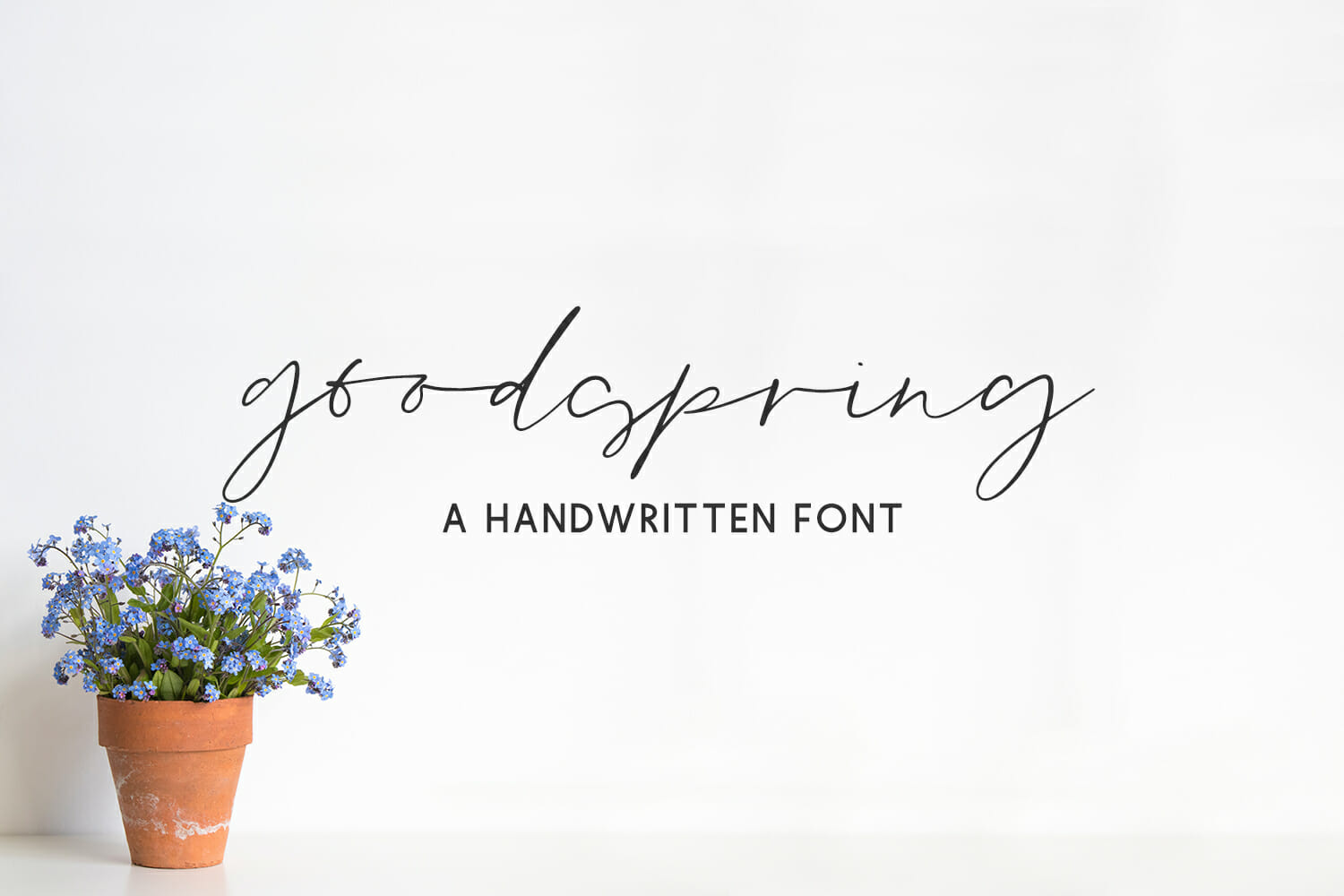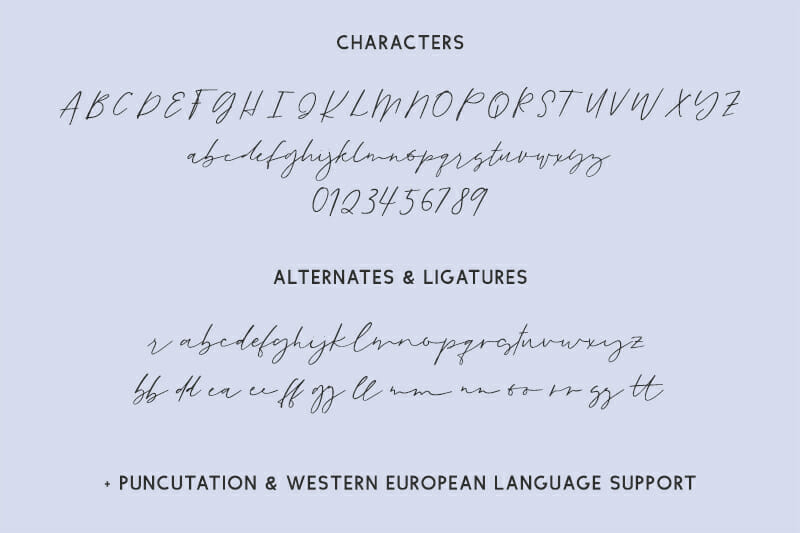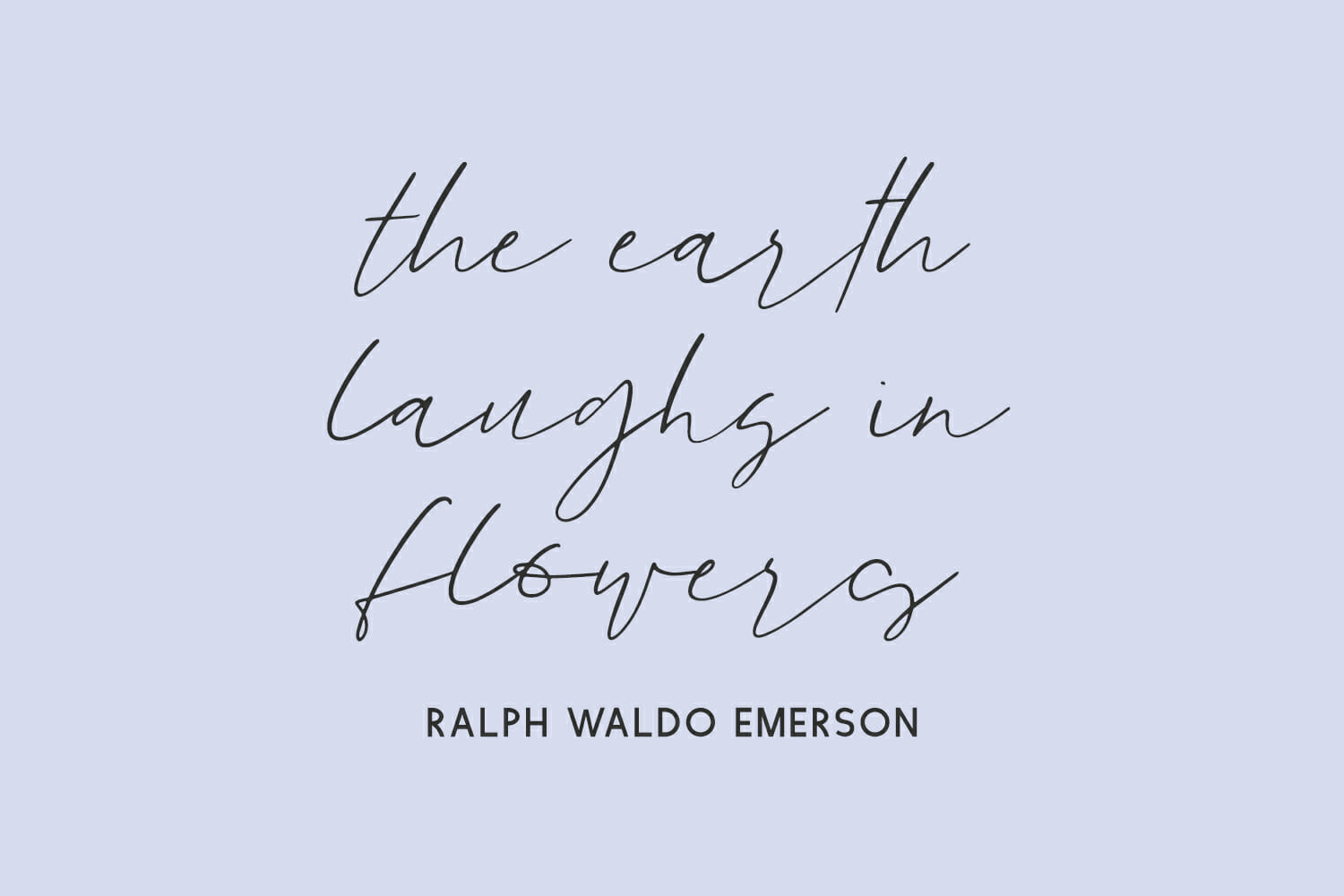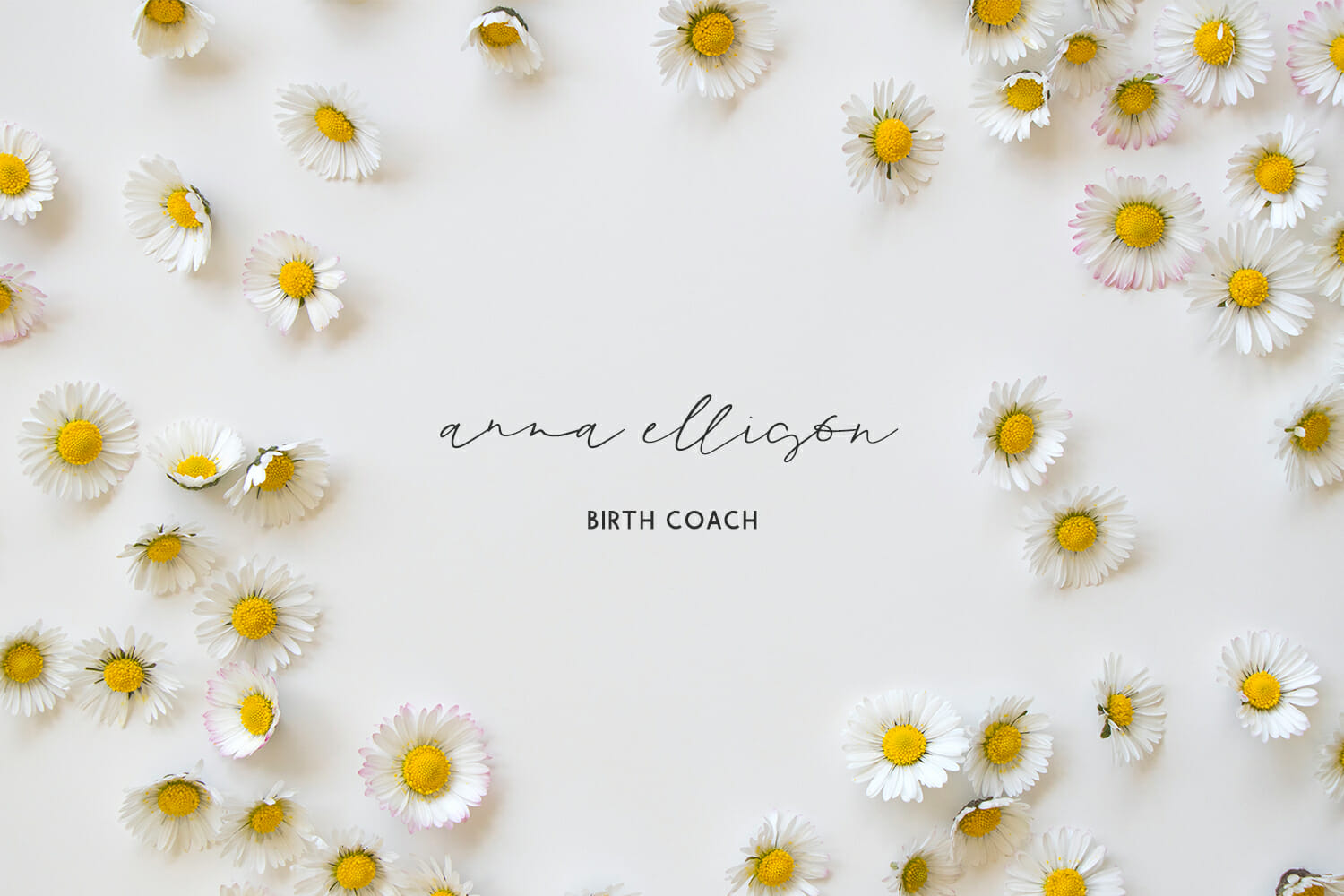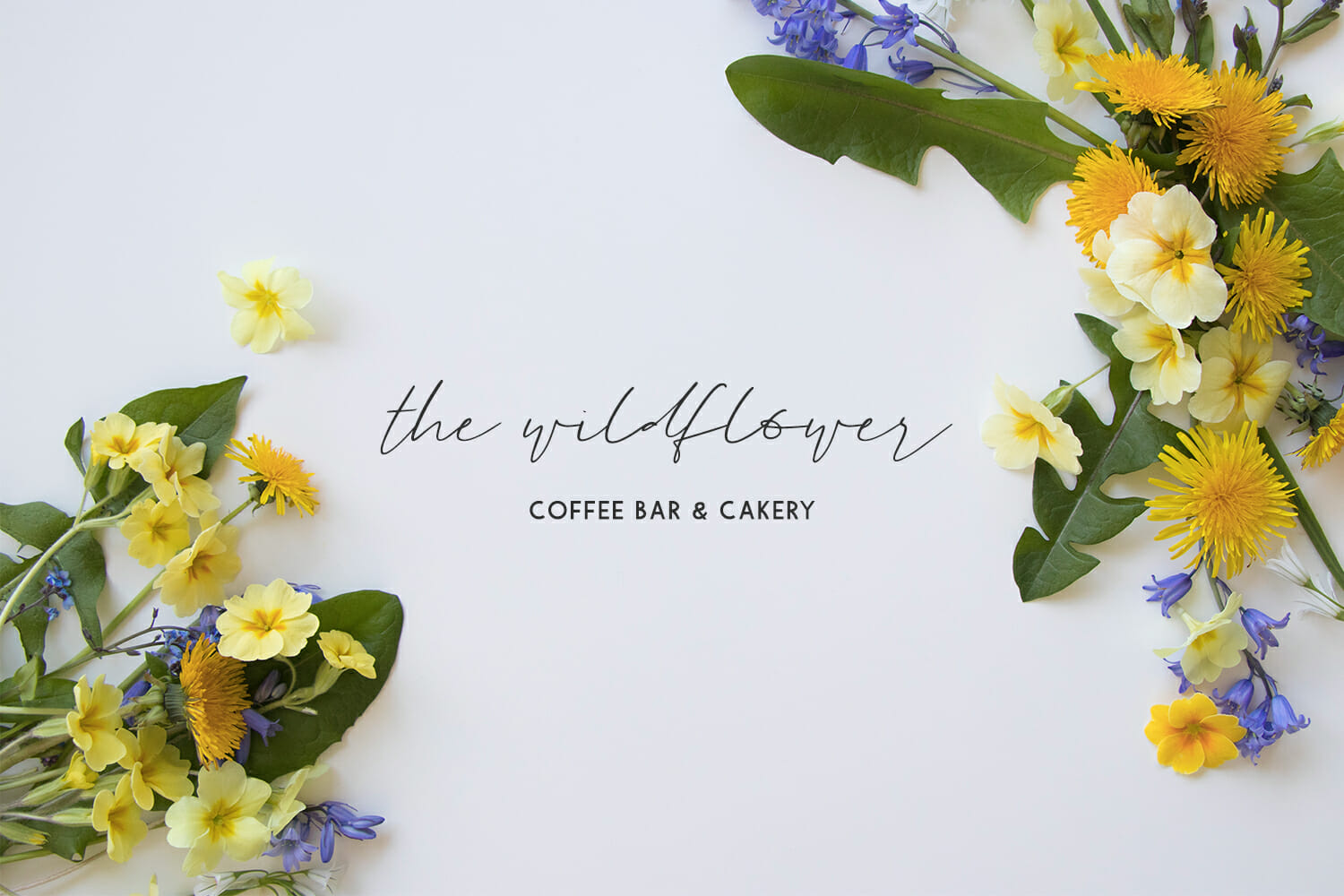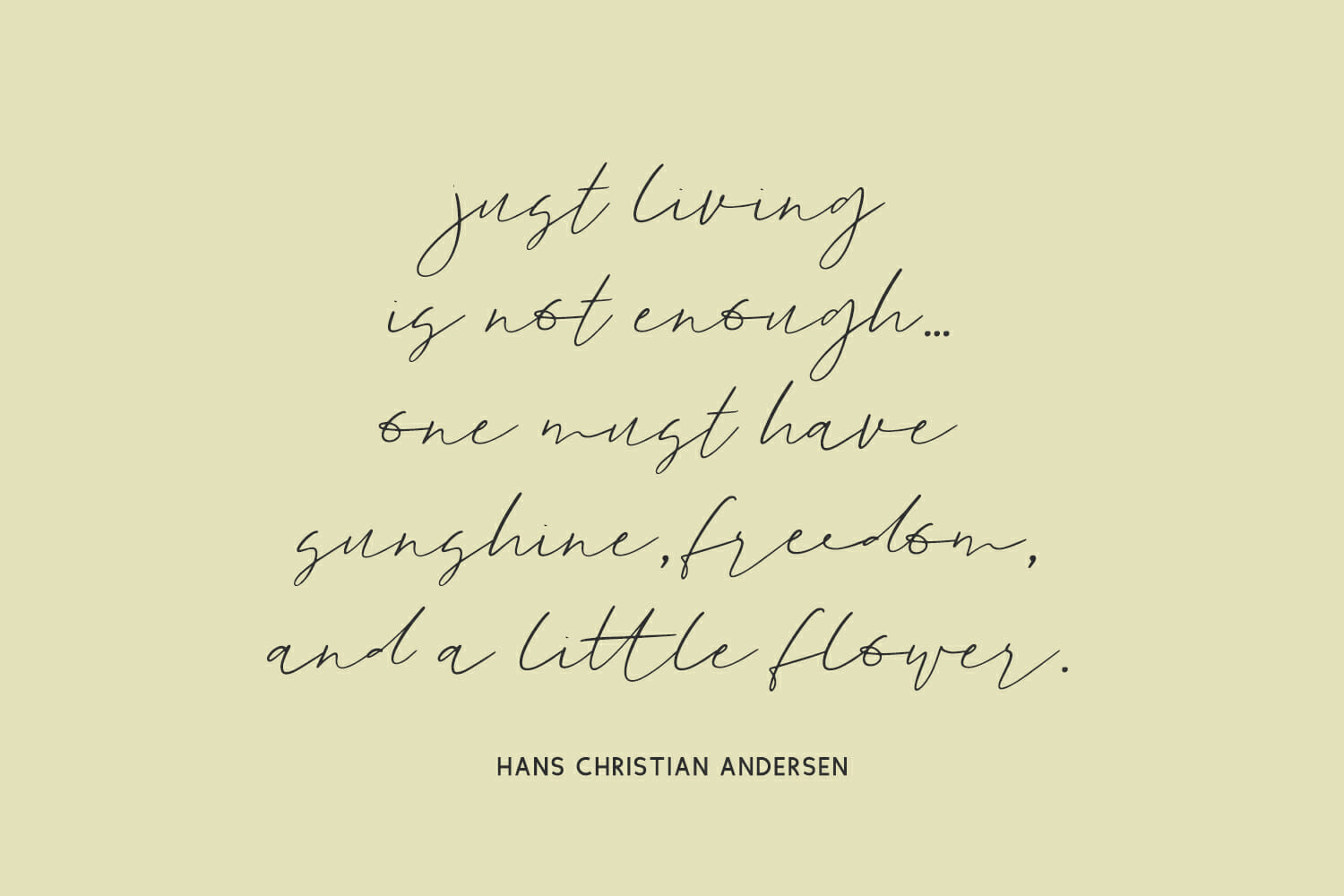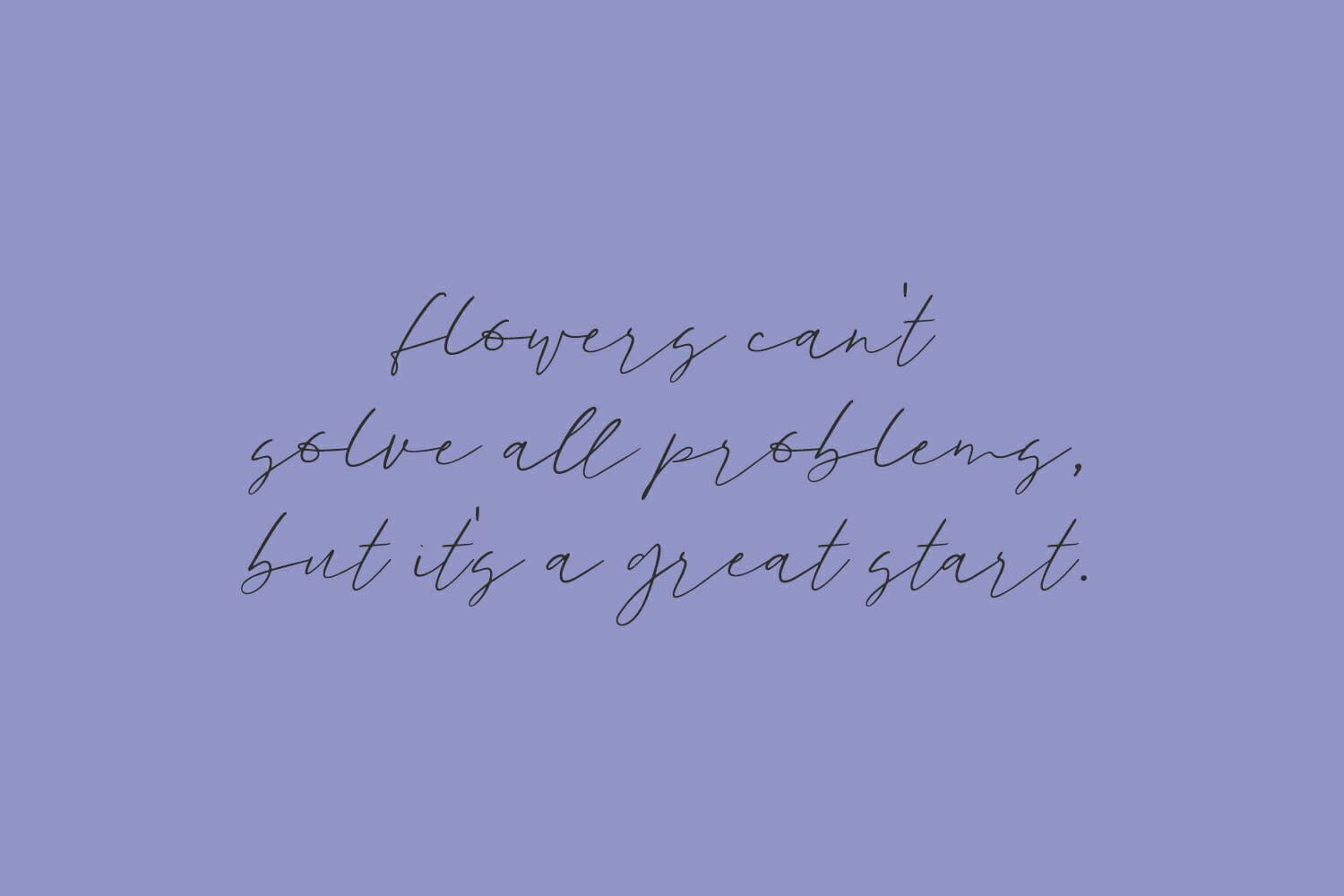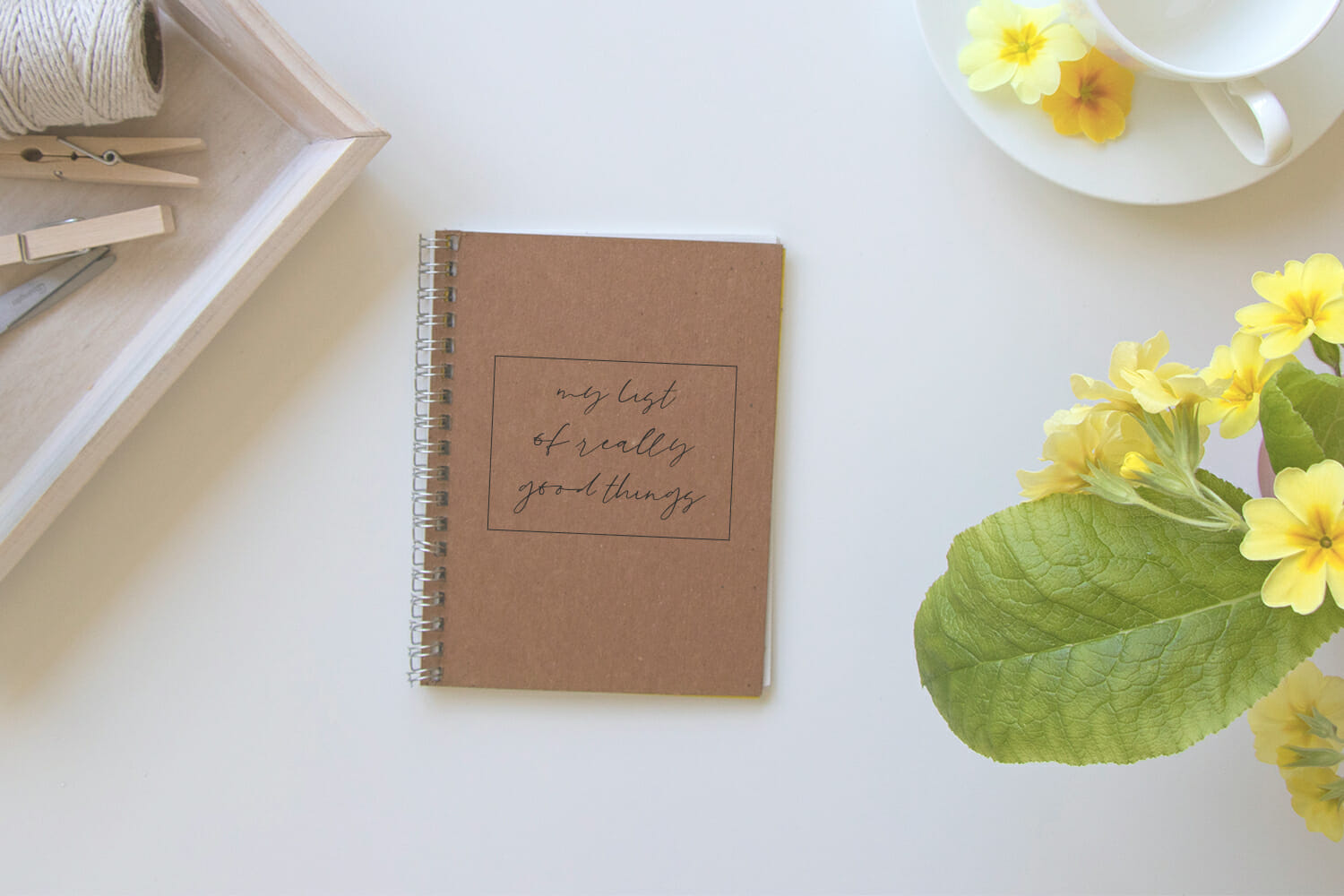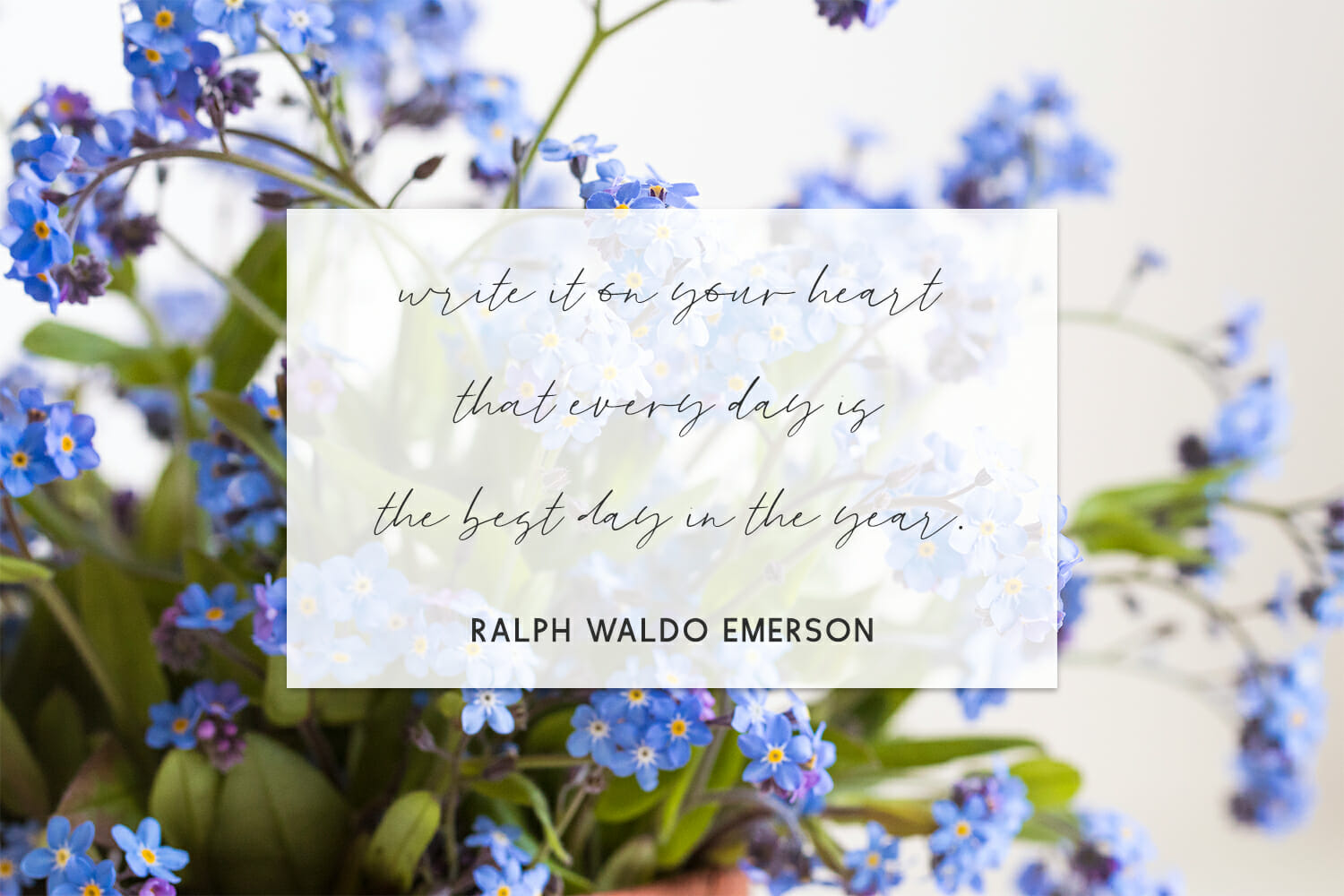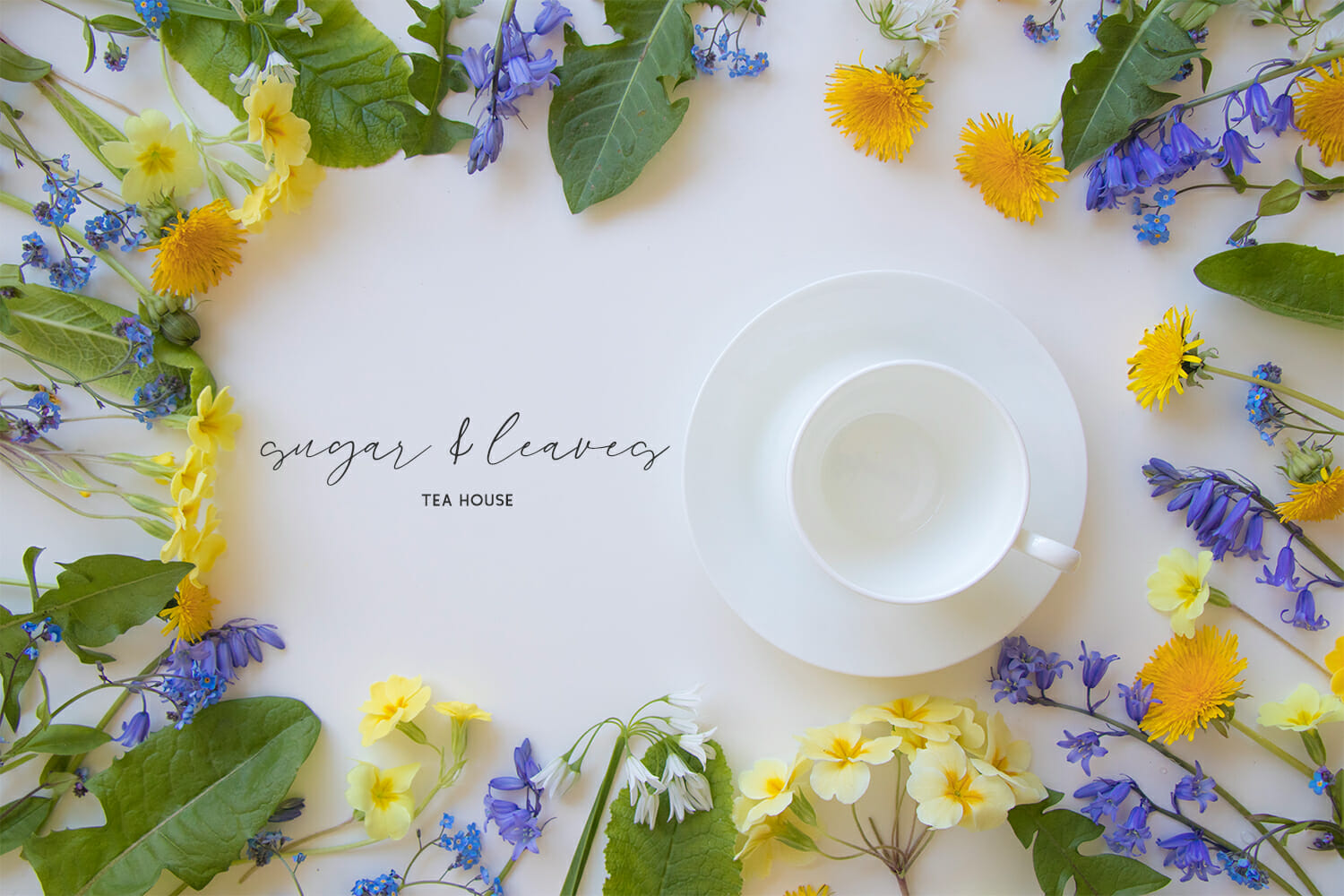
Goodspring Script
Introducing Goodspring, a handwritten signature style font. This wispy thin stylish font features a messy, casual look like handwriting, making it perfect for a signature style logo!
Goodspring is best for:
– logos + branding, like health + life coaches, beauty & cosmetic brands, party & event planner brands
– website design + website accents – think design blogs, travel blogs, fashion blogs, & more
– clean print design, like magazines + flyers
– header elements that need handwritten touch
– quote graphics for social media
Goodspring includes:
– 27 lowercase alternates
– 13 ligatures – bb, dd, ea, ee, ff, gg, ll, mm, nn, oo, rr, ss, tt